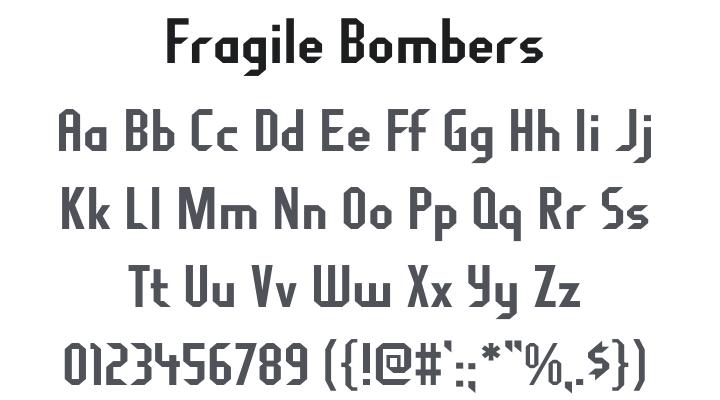
Fragile Bombers Font Family
About Fragile Bombers
Fragile Bombers is a sharp, military-themed display typeface with crisp, geometric letterforms that balance modular structure with a sly robotic personality — precise and angular without feeling cold or lifeless. It comes in Regular and two rusted metal finishes (Attack and Down), adding battle-worn texture options. Perfect for military branding, action game titles, sci-fi interfaces, industrial posters, and tech-themed designs.